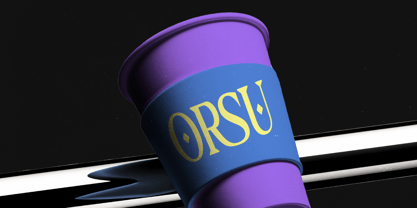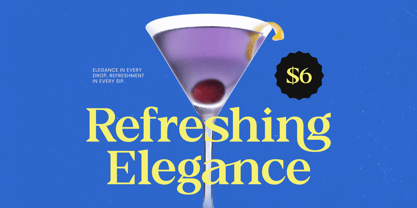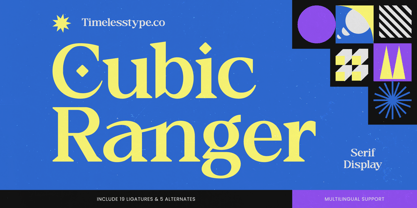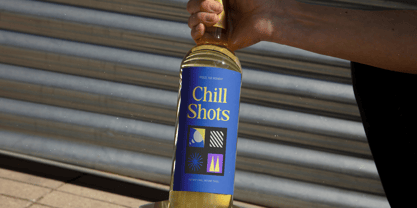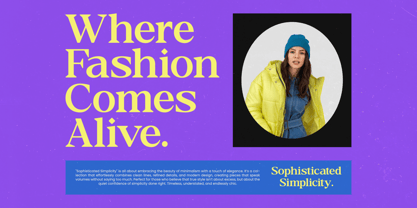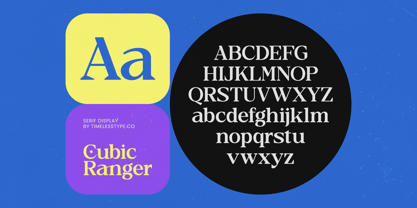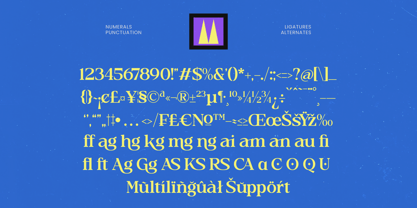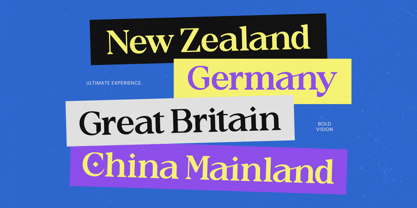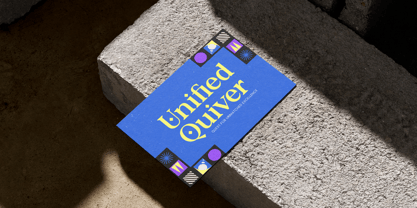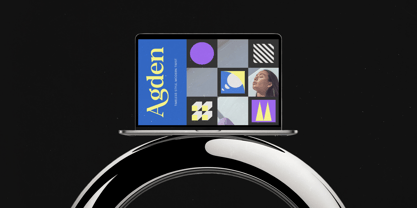
Cubic Ranger
por Timelesstype Studio
La familia tipográfica Cubic Ranger fue diseñada por Heru Utama Putra y publicada por Timelesstype Studio. Cubic Ranger contiene 2 estilos y opciones de paquete familiar. Más información sobre esta familia
Cubic Ranger – Serif Display Font is a masterclass in sophisticated typography, blending high-contrast strokes with organic, rounded forms. Its bold visual presence ensures that every character commands attention, making it an essential tool for designers seeking to create a timeless aesthetic. The font’s unique balance of sharp serifs and soft curves provides a dynamic rhythmic flow that is both legible and artistically expressive. Experience unparalleled flexibility in your creative workflow with advanced typographic features. This typeface is engineered for professional-grade performance, featuring 19 custom ligatures and 5 stylistic alternates that allow for bespoke design compositions. With its extensive multilingual support, Cubic Ranger – Serif Display Font adapts seamlessly across global markets, making it incredibly versatile for international projects. Whether you are targeting a local boutique or a global audience, this modern serif ensures your brand message remains consistent and impactful.
Diseñadores: Heru Utama Putra
Fundición: Timelesstype Studio